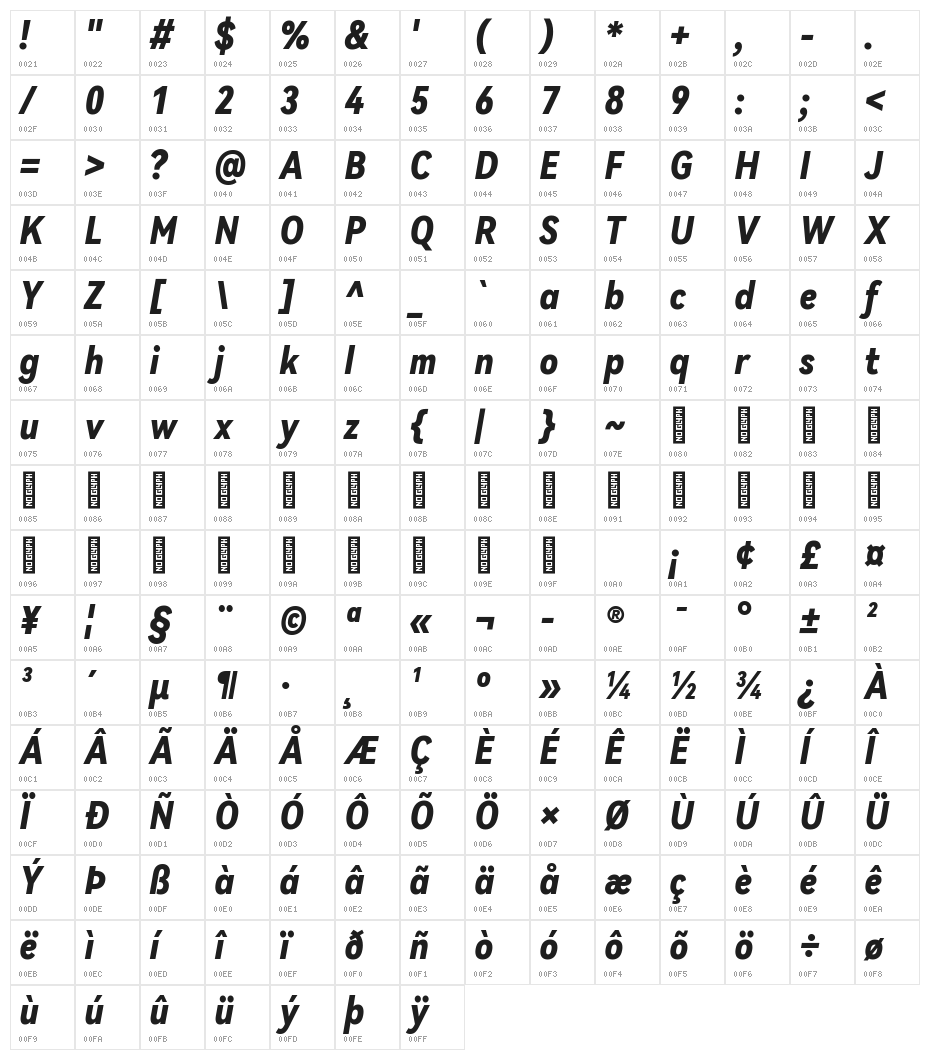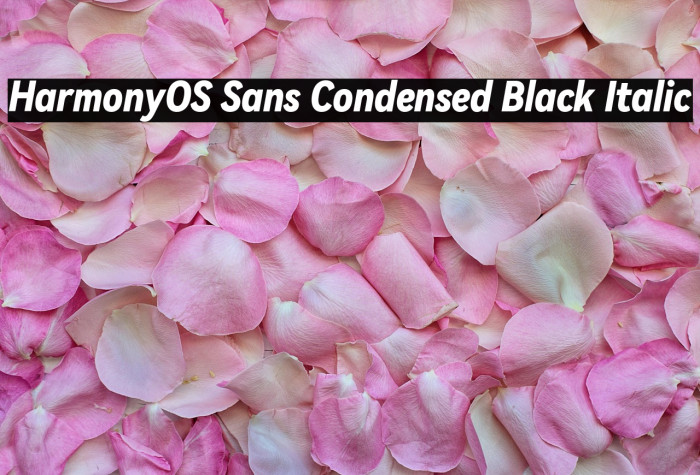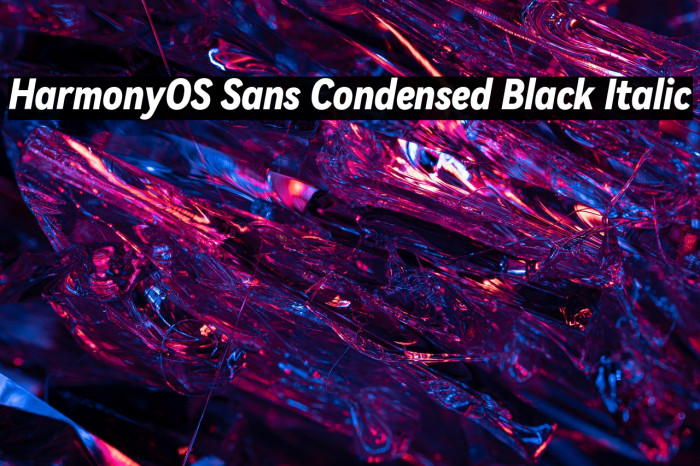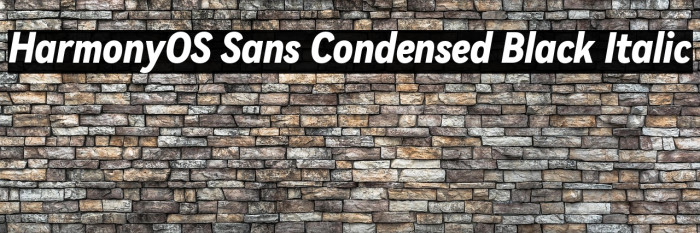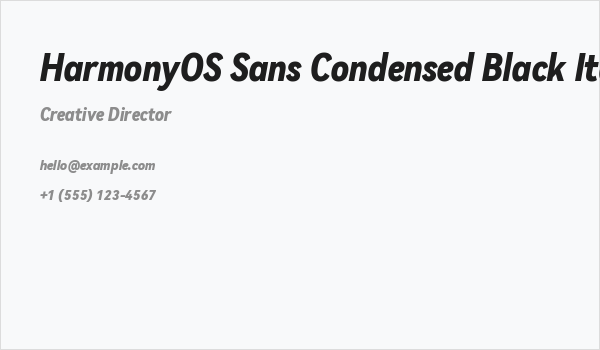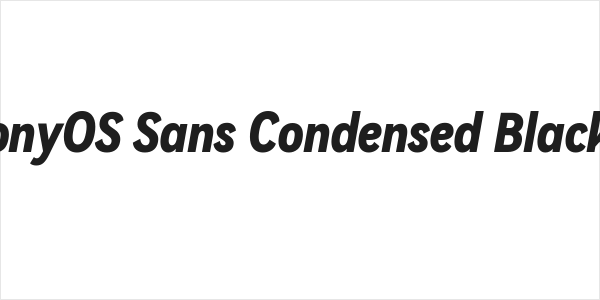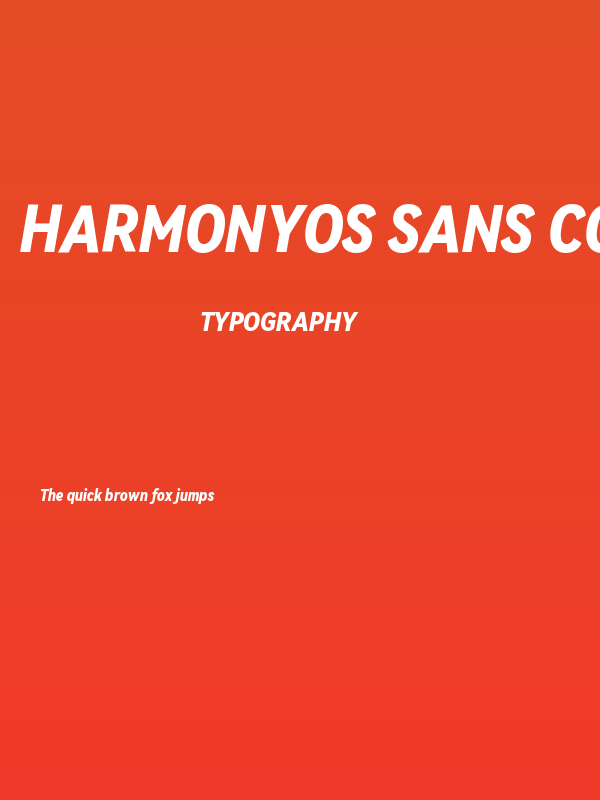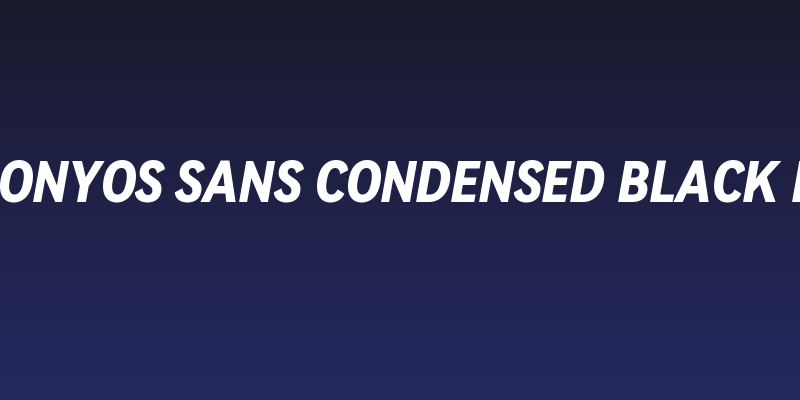
HarmonyOS Sans Condensed Black Italic Font
HarmonyOS Sans Condensed Black Italic Description
This font exhibits a bold and dynamic presence with its condensed and italicized form. The characters are robust and impactful, featuring a strong emphasis on vertical strokes, which are slightly slanted to the right, giving a sense of motion and urgency. The design is clean and modern, with a uniform stroke width that maintains consistency across all characters. The uppercase letters are tall and commanding, while the lowercase letters are well-proportioned, ensuring readability. Numerals are clear and distinct, making them suitable for various applications. Special characters are included, maintaining the same bold style, which enhances the font's versatility.
Use CaseHeadlines, Logos, Advertising
Proposed ProjectsIdeal for headlines, advertising, branding, and any project requiring a strong visual impact.